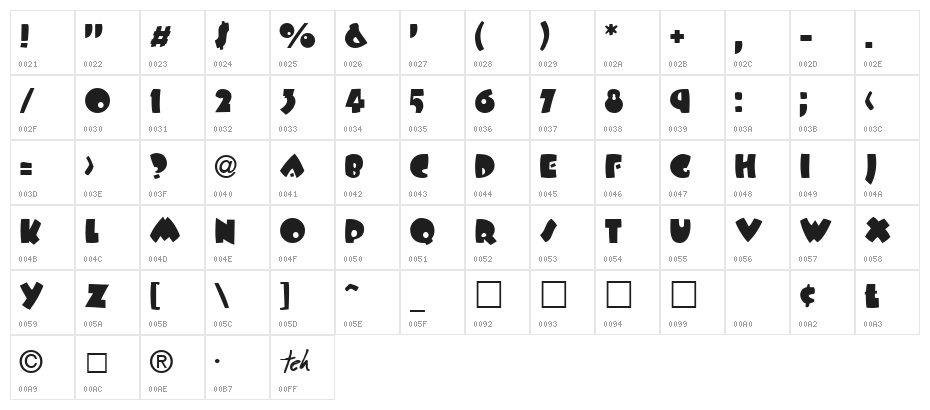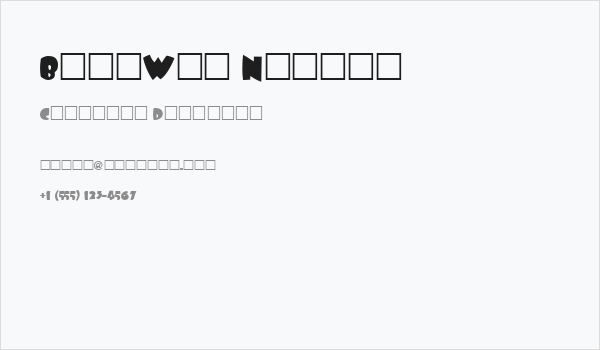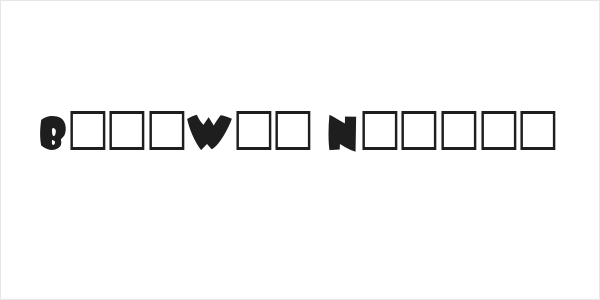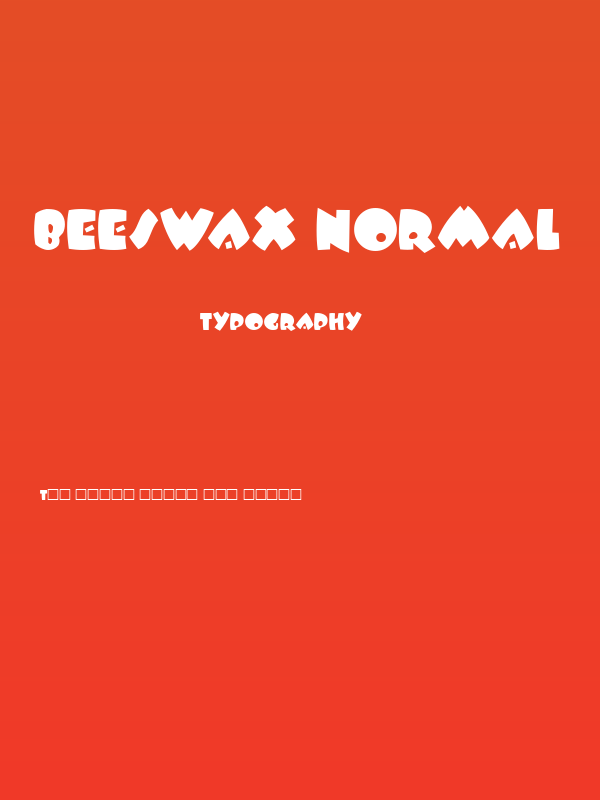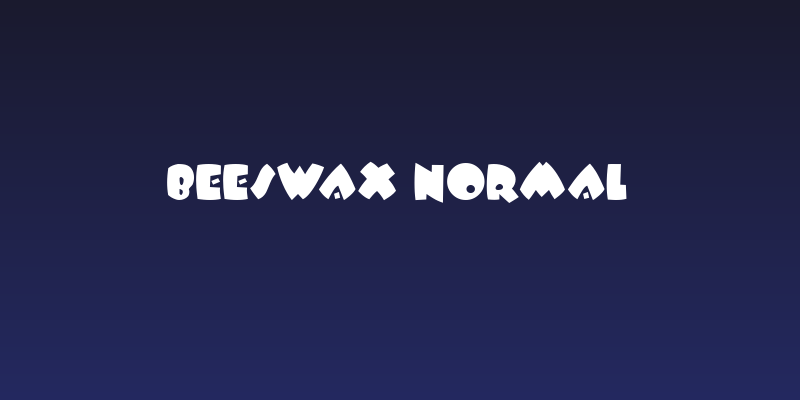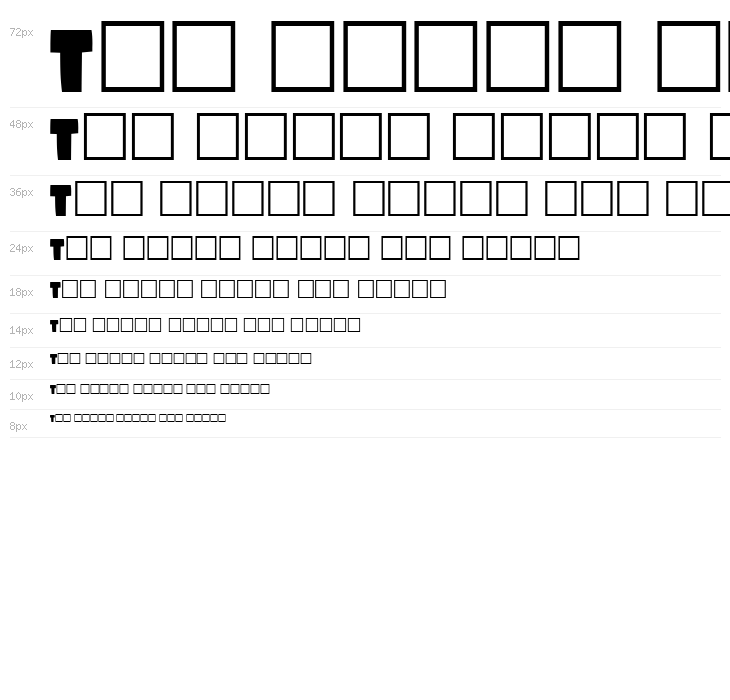
BeesWax Normal Font
✎ Decorative
| Общий стиль | Playful, Cartoonish |
| Рекомендуемые проекты | Ideal for children's books, playful branding, posters, and any design that requires a fun and engaging style. |